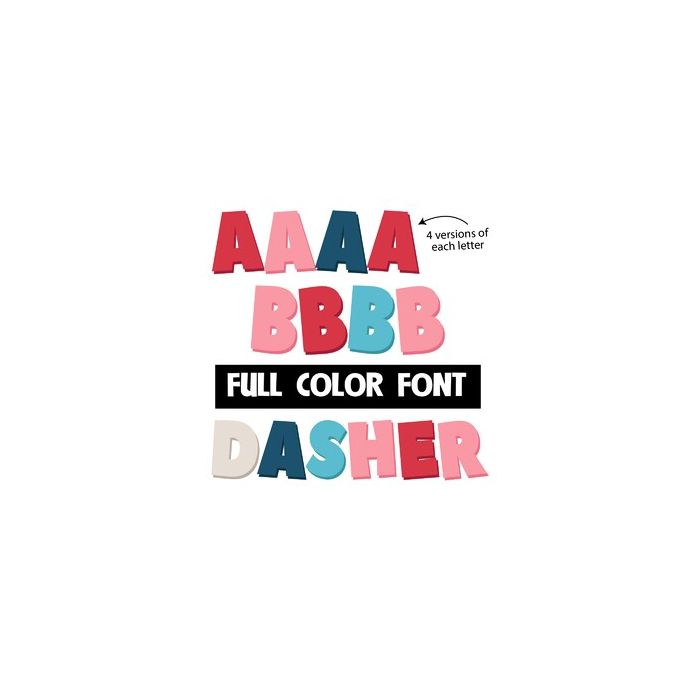
This full-color font is a toggled font with a Christmas color palette. There is a third and fourth color option for each letter available through Silhouette's Glyph map.